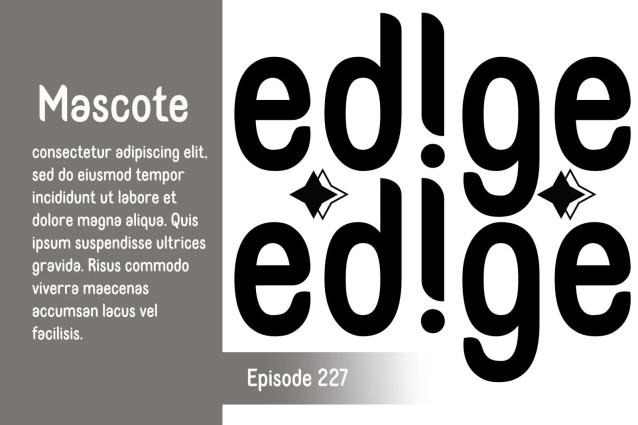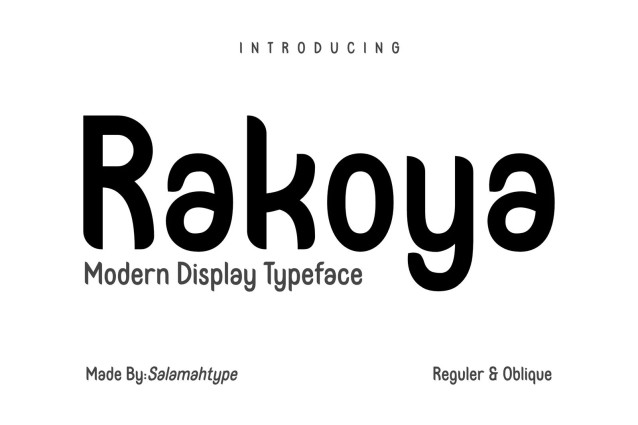
Rakoya Font
Rakoya Font is a playful yet modern display typeface with smooth curves and unique character design, perfect for branding, logos, posters, quotes, social media graphics, packaging, and any project that needs a fresh and friendly look. Its rounded edges and distinctive letter shapes create a strong visual presence while maintaining readability. Rakoya comes in Regular and Oblique styles to give you flexibility in your designs.